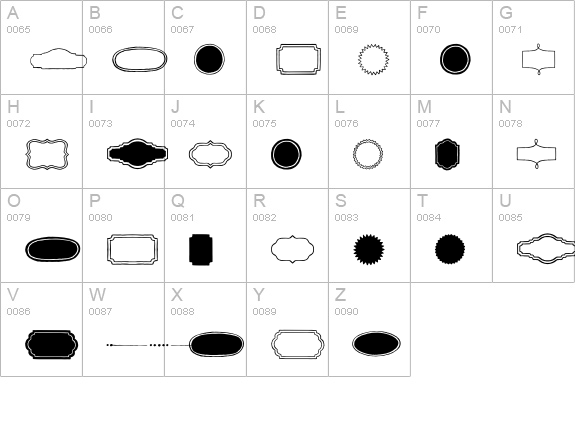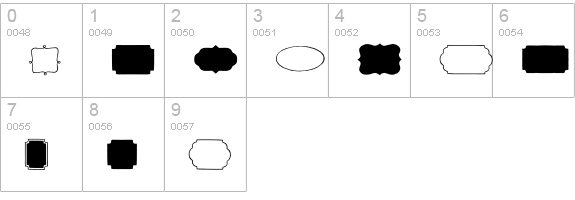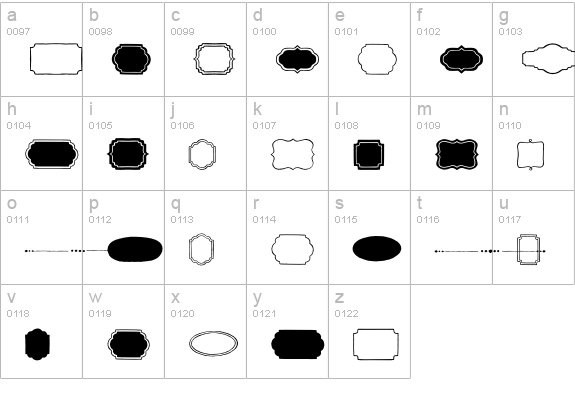
PacificNorthwestLabels-NormalMe Font Details
PacificNorthwestLabels-NormalMe is a charming and versatile font that captures the essence of the Pacific Northwest region. This font exudes a sense of natural beauty and ruggedness, making it perfect for a wide range of design projects. With its clean lines and distinctive style, PacificNorthwestLabels-NormalMe is ideal for creating eye-catching labels, invitations, posters, and more. What makes this font even more appealing is that it is available for free download at FontsMarket.com. You can easily add this unique font to your collection without any cost, making it a valuable addition to your design resources. Whether you are a professional designer or a hobbyist looking to enhance your projects, PacificNorthwestLabels-NormalMe is a must-have font that will bring a touch of the Pacific Northwest to your creations.